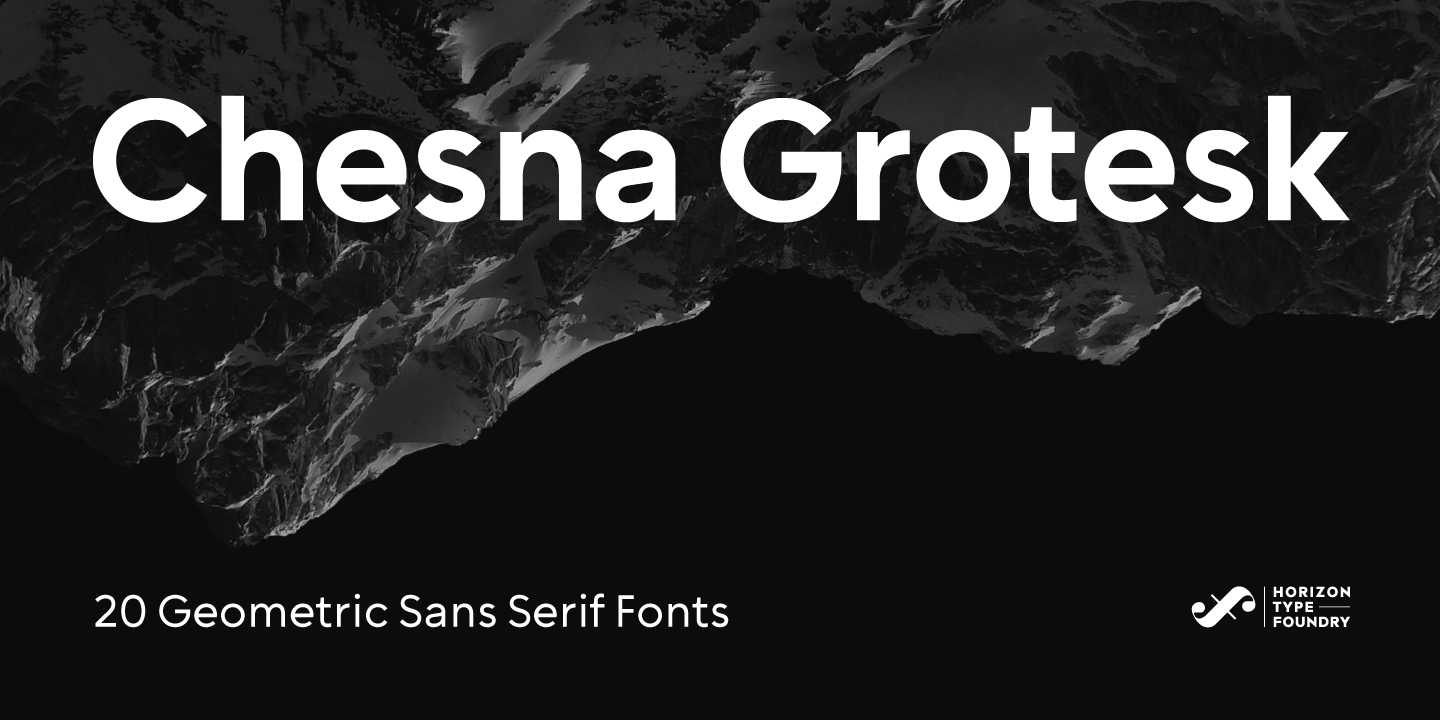
Introducing Chesna Grotesk Font Free Download, a contemporary neo-grotesque that revitalizes classic Swiss typography with subtle humanist warmth. This versatile workhorse combines the neutrality of traditional grotesques with just enough personality to stand out in modern design systems.
Why Chesna Grotesk Excels
1. Refined Grotesque Design
Softer curves than traditional industrial grotesques
Slightly open apertures for better readability
Perfect 5:6 x-height to cap-height ratio
2. Universal Application Power
Engineered for:
Web and app interfaces
Editorial design systems
Corporate identity programs
Data visualization
Retail branding
3. Technical Excellence
7 weights from Thin to Black
True italics (not slanted)
Extended Latin and Cyrillic support
Optimized for 4K/retina displays
Chesna Grotesk Font Free Download masters:
UI/UX design systems
Annual report typography
Wayfinding and signage
Technical documentation
Multi-platform branding
Designer Tip: Use Medium weight at 16px for perfect UI readability.
Chesna Grotesk Font Free Download – Where Swiss precision meets contemporary warmth!
Key Advantages:
Maintains clarity from 8pt to 800pt
Balanced color in text blocks
Superior legibility in motion graphics
Why It's Special:
Chesna Grotesk solves the modern designer's dilemma – achieving Helvetica-like versatility with more distinctive character.
Perfect Pairing:
Combine with a transitional serif like Miller for sophisticated editorial layouts.
Pro Insight:
The SemiBold weight works exceptionally well for financial dashboards, offering authority without sterility.
Includes tabular figures
Alternative currency symbols
Optimized for dark mode interfaces
Design Philosophy:
Developed for digital-first applications while maintaining print excellence – making it truly multi-platform.
Expert Recommendation:
Use in deep navy (#002366) for corporate communications that feel both authoritative and approachable.
Technical Note:
The font's metrics create perfect vertical rhythm in multi-line UI text blocks.
This font may cause permanent dissatisfaction with lesser grotesques. Use for designs demanding uncompromising quality!